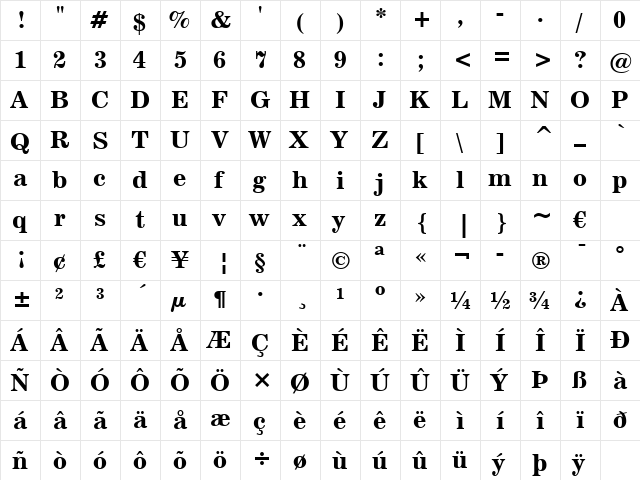
News702 BT Bold
Design Context for News702 BT Typeface
News702 BT is a composed and adaptable typeface that performs quietly and consistently across a wide range of design contexts. Its bold stroke weight gives it real presence on the page.